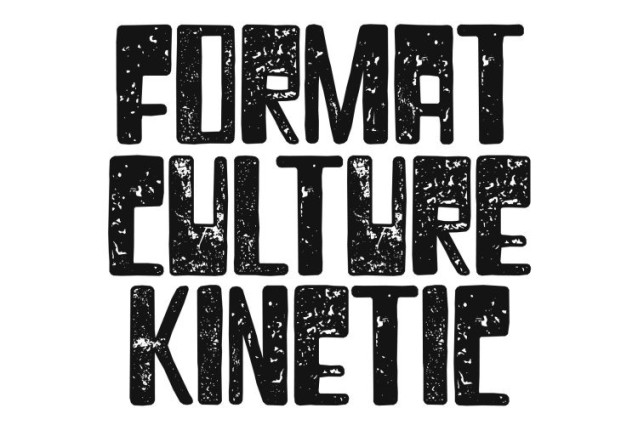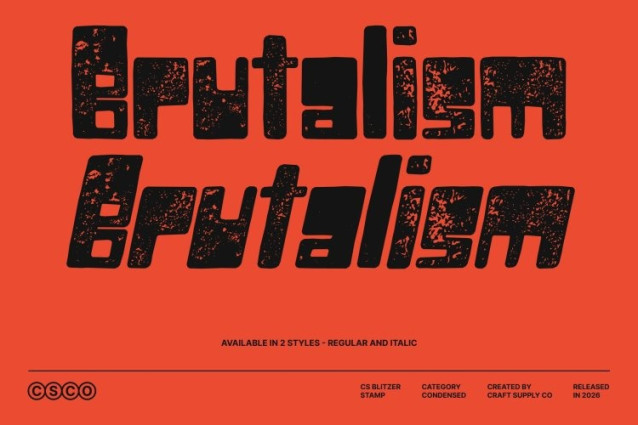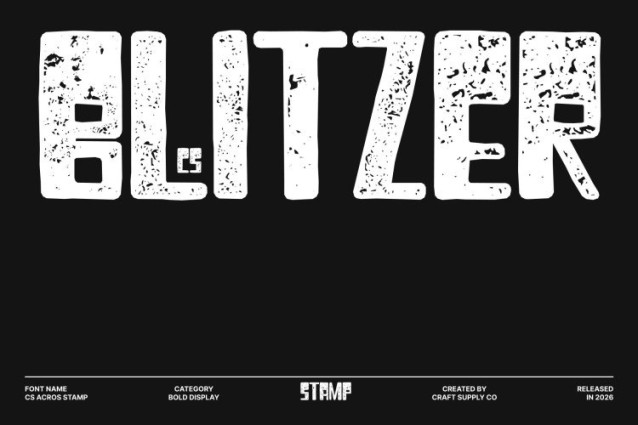
CS Blitzer Stamp Font
CS Blitzer Stamp Font This takes the bold, experimental sans serif foundation of the original and enriches it with a distressed stamp texture. The condensed proportions, reverse contrast, and sharp geometry remain intact, while subtle ink breaks, rough edges, and imperfect impressions introduce a raw, tactile quality. This fusion creates a typeface that feels both futuristic and industrially aged.
Brutalist Structure with Handcrafted Grit
The rigid, architectural letterforms gain added personality through stamped imperfections that echo old industrial signage, screen printing, and mechanical presses. The reverse contrast becomes even more expressive, amplified by uneven inking that adds depth and visual tension. The result is a powerful typographic voice structured yet rebellious.
Ideal for Editorial, Posters, and Industrial Branding
This font excels in editorials, experimental posters, album covers, fashion graphics, and contemporary branding that demands intensity and originality. Its stamped texture softens the severity just enough to add artistry, while maintaining the bold authority of brutalist design.
A Fusion of Avant-Garde and Vintage Industrial Spirit
By combining futuristic geometry with a weathered stamp finish, this font bridges innovation and nostalgia. It’s a font for visionary designers who want their typography to feel bold, unconventional, and richly textured where modern experimentation meets old-world industrial grit.